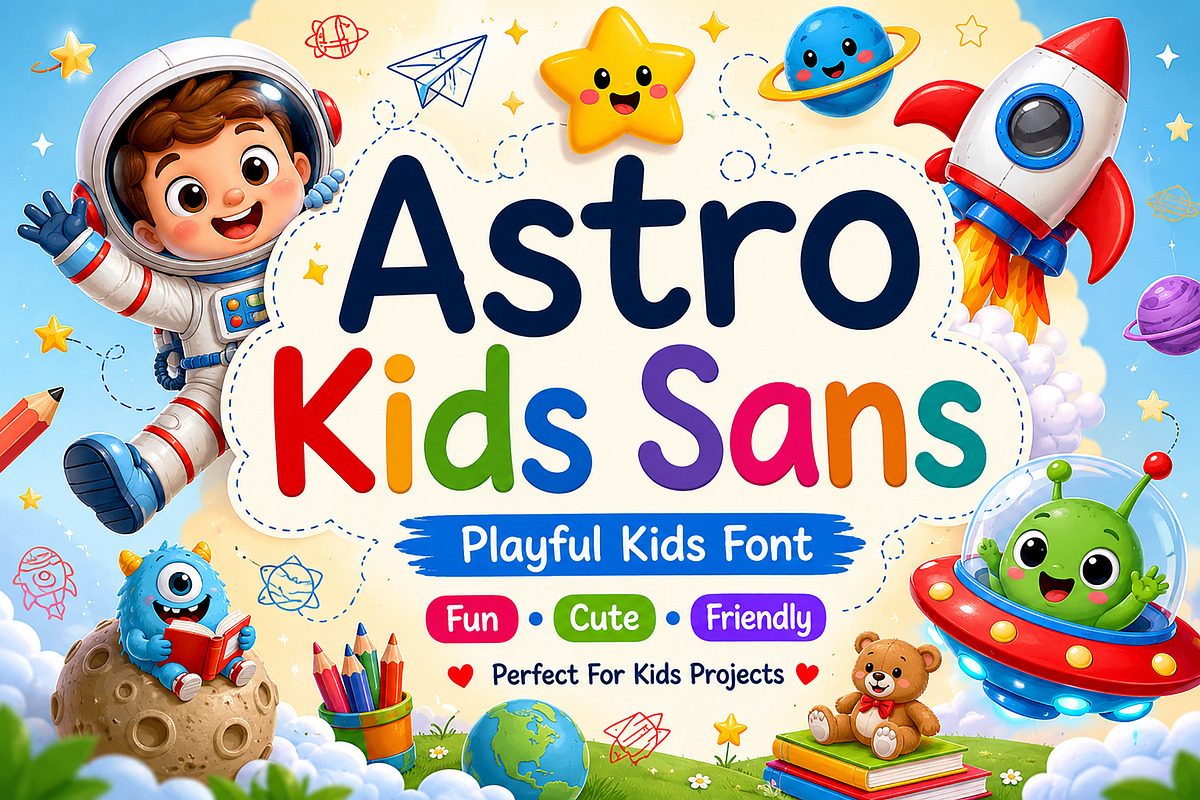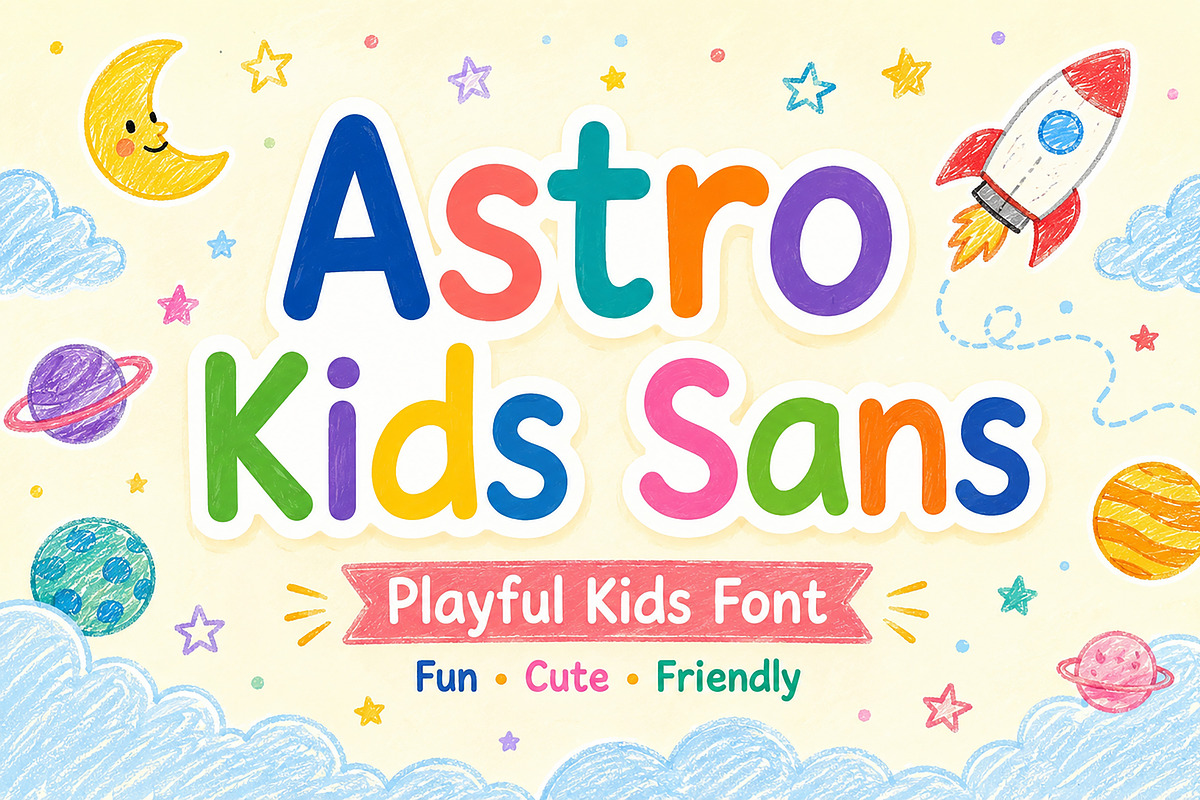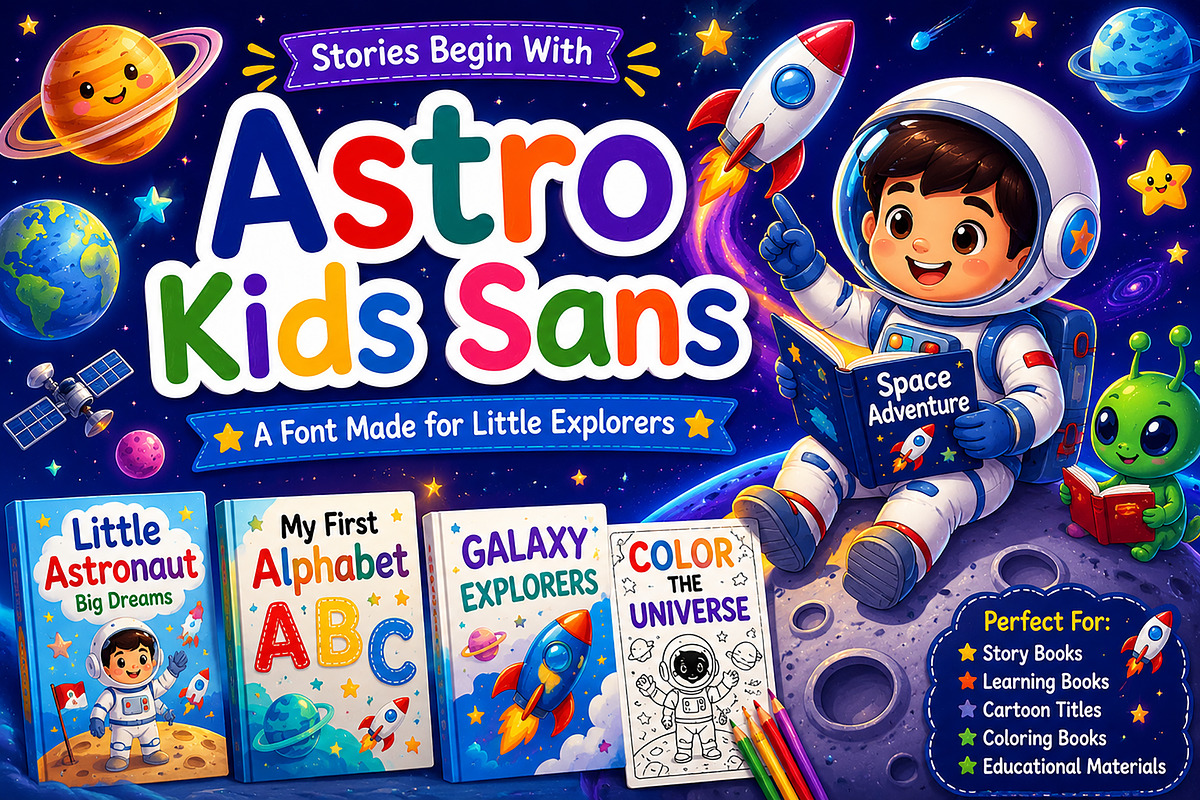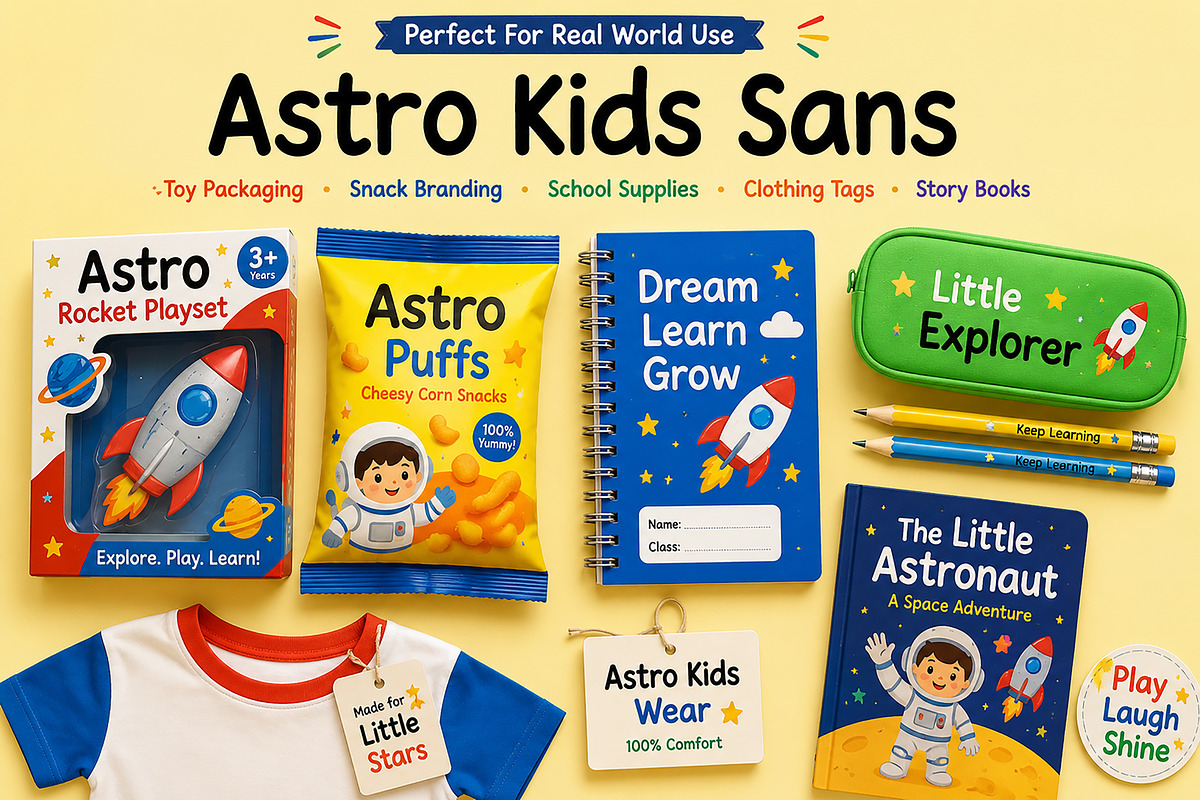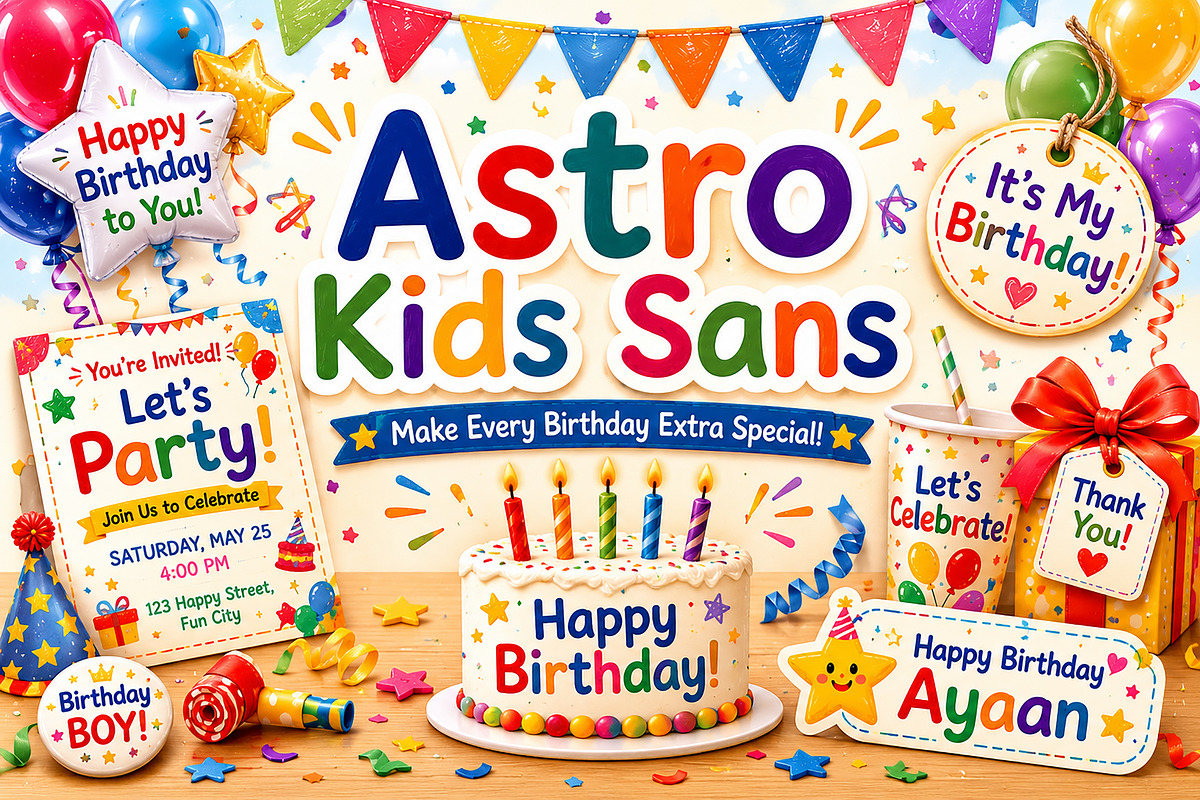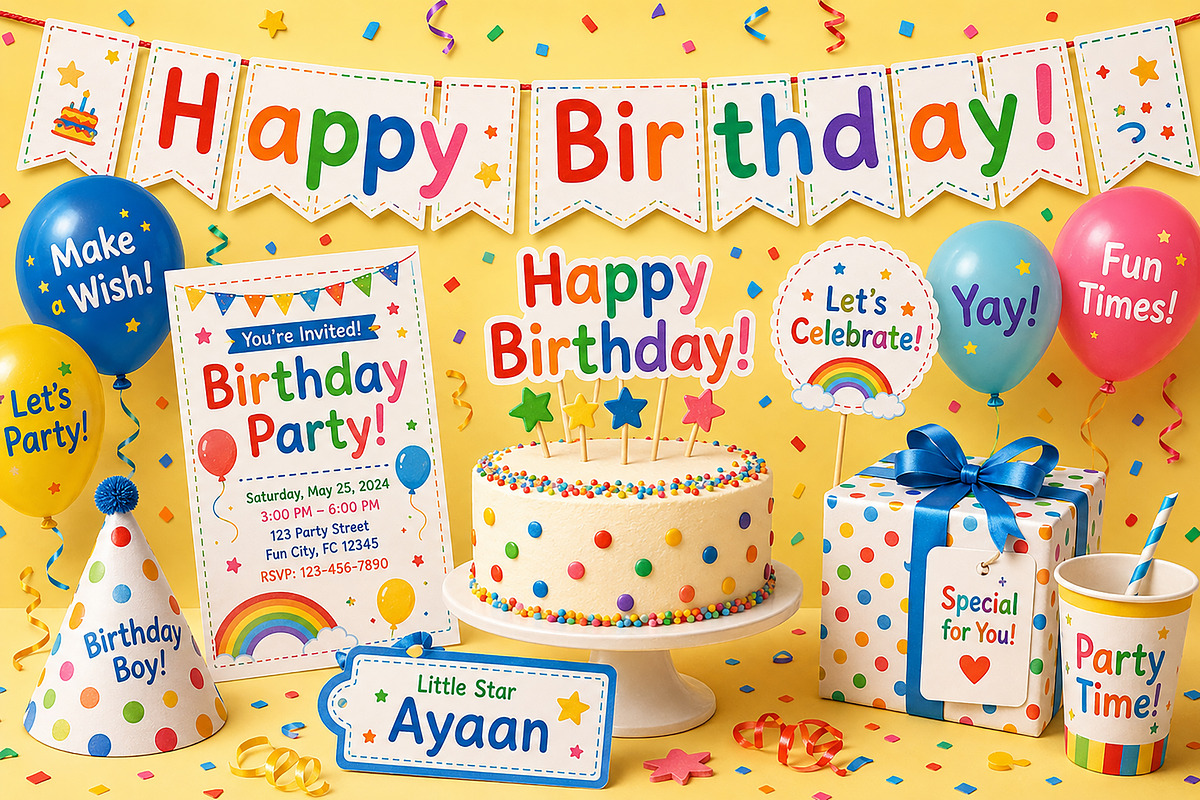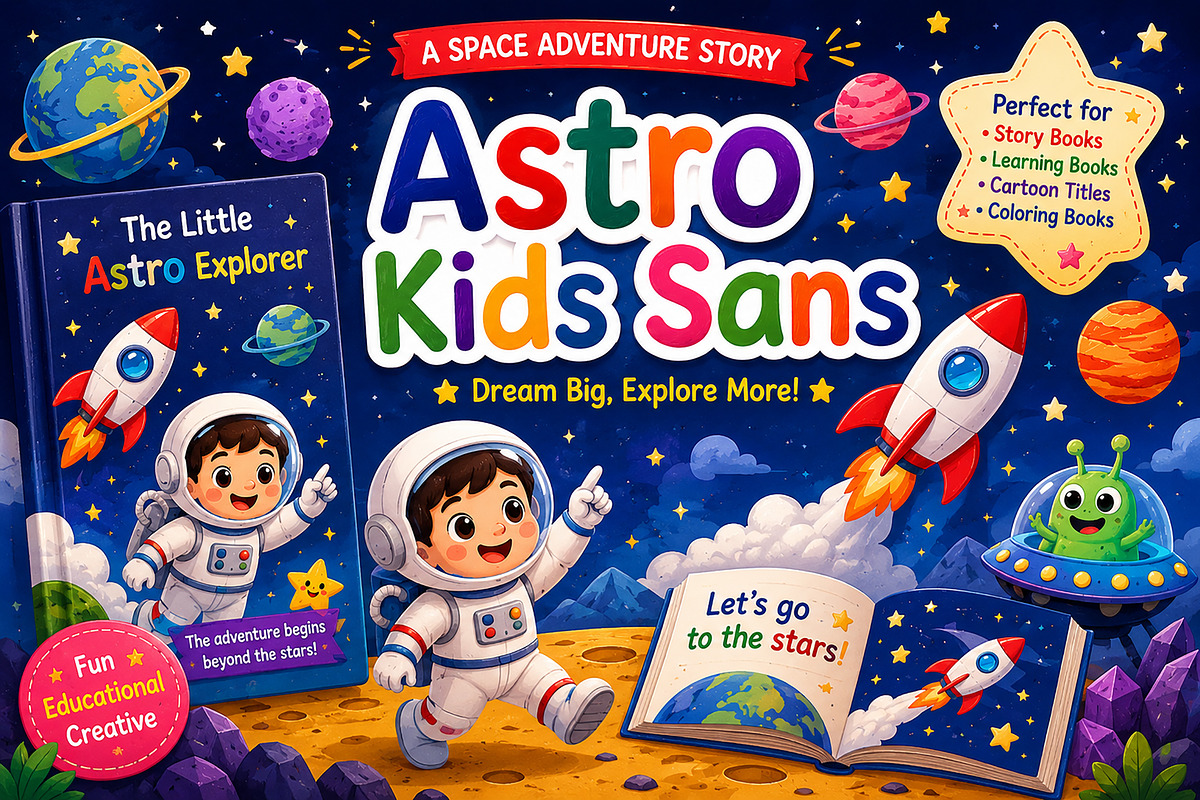
Astro Kids Sans
Playful Kids Font
Bring fun, creativity, and imagination into your designs with Astro Kids Sans — a cheerful and playful display font crafted especially for kids-focused projects. With its soft rounded edges, friendly letterforms, and energetic personality, this font is perfect for creating designs that feel joyful, approachable, and full of adventure.
Inspired by childhood wonder and space exploration, Astro Kids Sans is ideal for projects that need a cute, fun, and expressive touch.
• Kids book covers
• Story titles
• Birthday invitations
• Party banners
• Toy packaging
• School supplies
• Children’s apparel
• Nursery decor
• Educational materials
• Cartoon branding
• YouTube thumbnails
• Stickers & labels
• Baby products
• Snack packaging
• Social media designs
Astro Kids Sans is designed to make your creative projects feel brighter, friendlier, and more exciting — perfect for little dreamers, explorers, and creators.
Create fun. Create magic. Create with Astro Kids Sans.